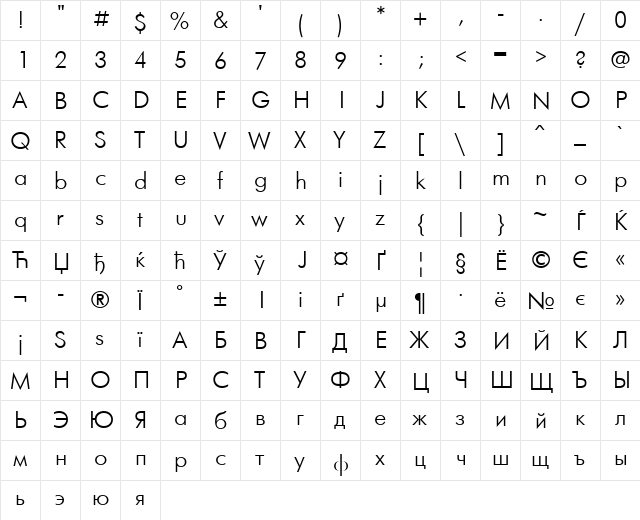
FuturaFuturisLightC Regular
Design Context for FuturaFuturisLightC Typeface
FuturaFuturisLightC channels digital-age aesthetics through its sharp, structured letterforms — ideal for brands that want to signal innovation. Its slender proportions lend an understated elegance to any composition.
Pro Tip: Use FuturaFuturisLightC in combination with a neutral sans for body text. Let it define the brand voice in headlines while keeping reading comfortable elsewhere.